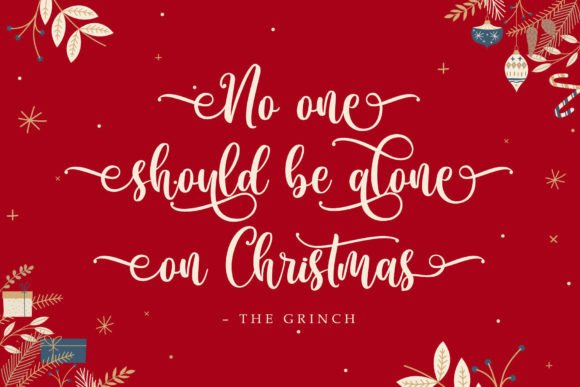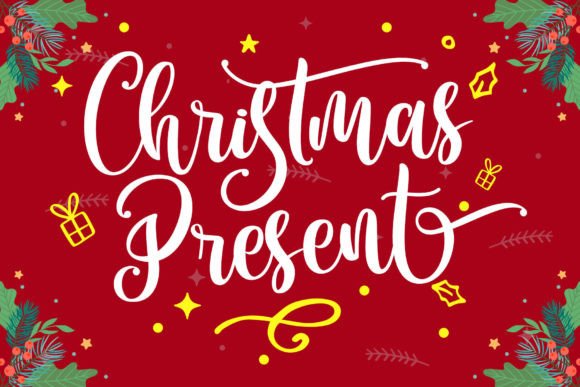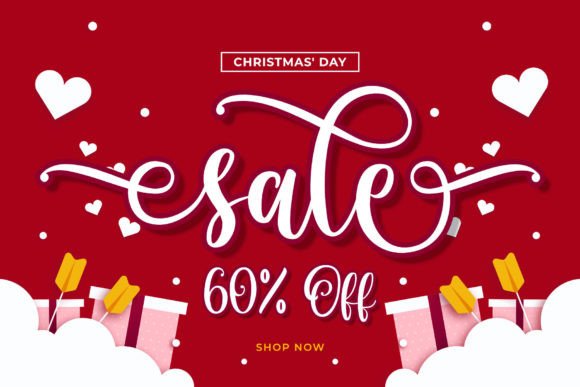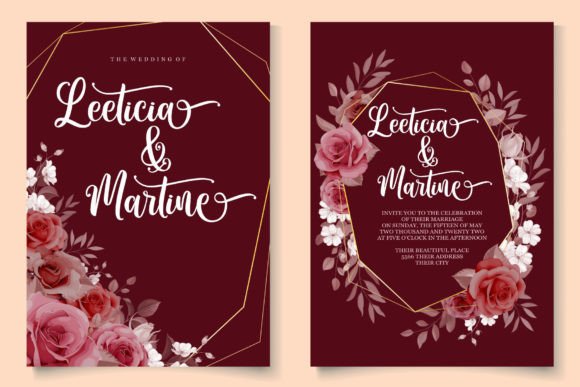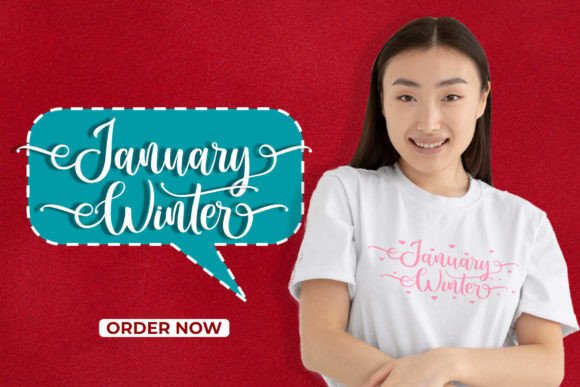
Miracle Christmas Font
Miracle Christmas is a script font. It is a quirky and natural hand-drawn font. This font has a strong holiday and Christmas theme, perfect for creating the designs you love.
This font is ideal for crafting, branding, and decorating any project. It is perfect for wedding invitations or your blog.
Fall in love with its incredibly versatile style and use it to create spectacular designs!
Use this font for any crafting project that requires a personalized look!
Masterfully designed to become a true favorite, this font has the potential to bring each of your creative ideas to the highest level!